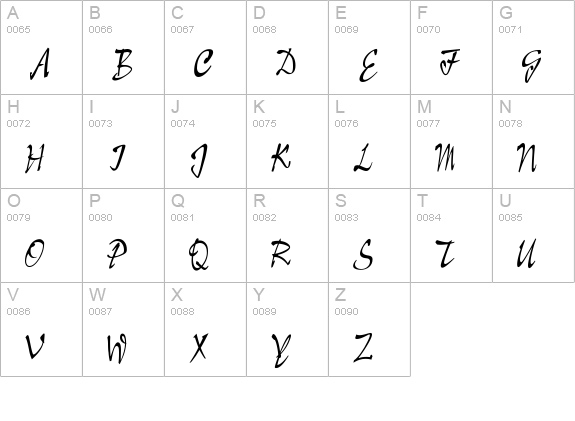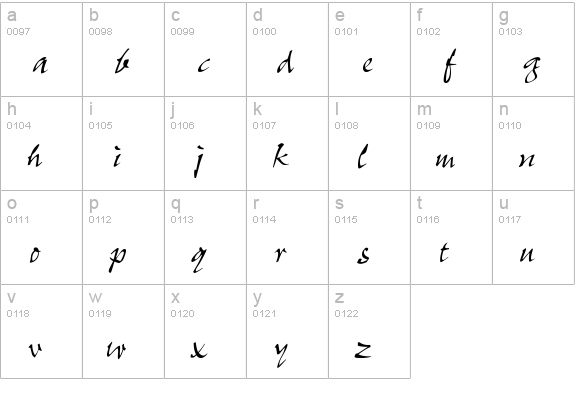
µØ±d¦æ®ÑÅé Font Details
The µØ±d¦æ®ÑÅé font is a unique and stylish typeface that brings a modern and elegant touch to any design project. With its sleek lines and distinctive characters, this font is sure to make a statement and grab the attention of viewers. The µØ±d¦æ®ÑÅé font is versatile and can be used for a variety of purposes, from branding to marketing materials to social media graphics. Best of all, this font is available for free download at FontsMarket.com, making it accessible to designers and creatives looking to enhance their projects without breaking the bank. Don't miss out on the opportunity to add this eye-catching font to your collection and take your designs to the next level. Download the µØ±d¦æ®ÑÅé font today and unleash your creativity!